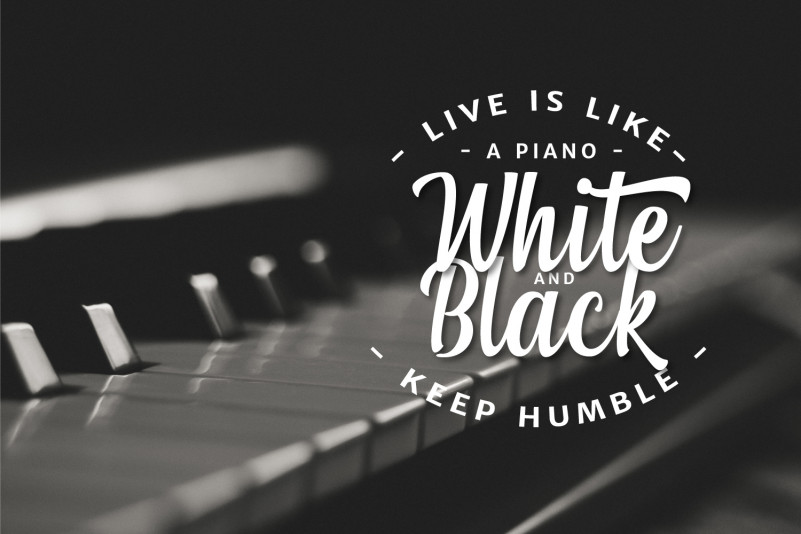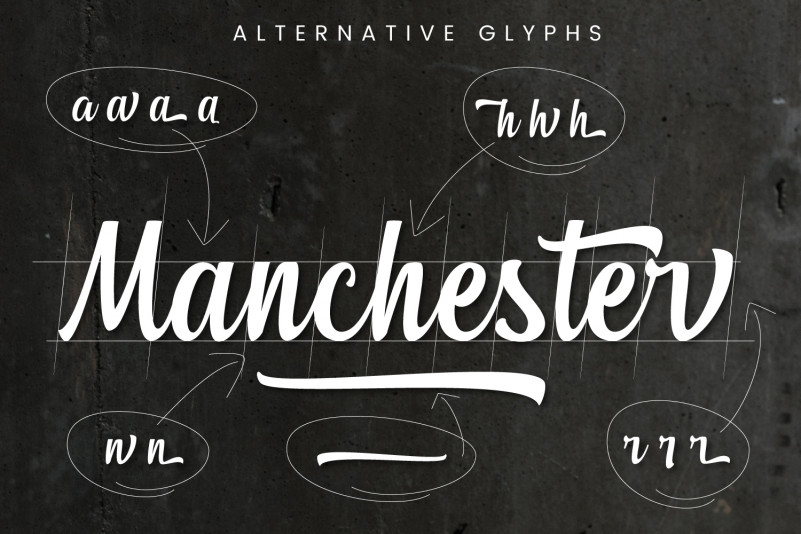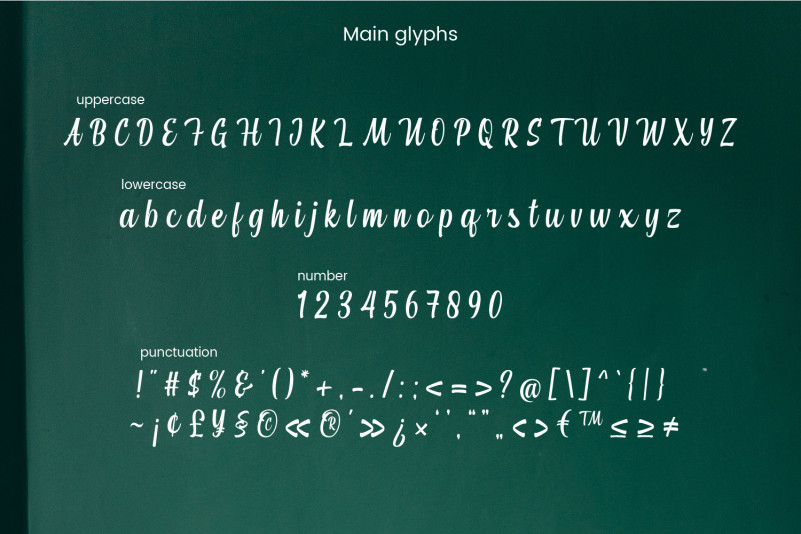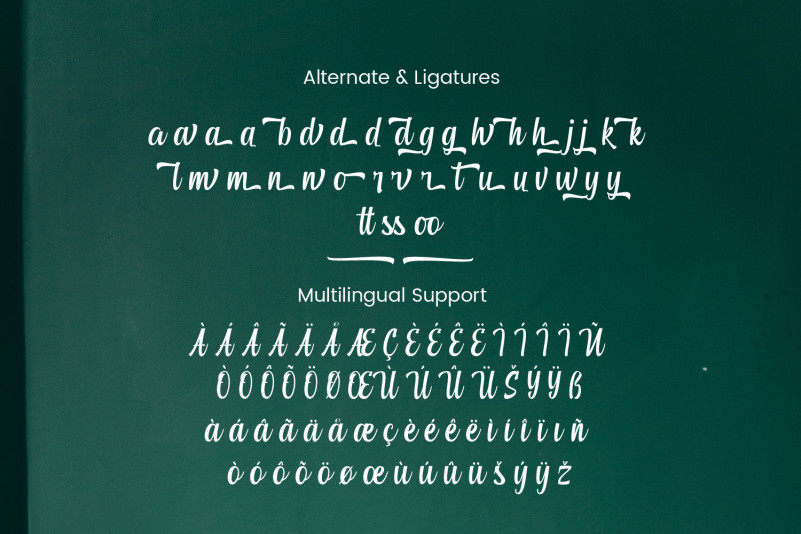
Atarashi Font
It’s a modern handwritten font. This font will look outstanding in any context, whether it’s being used on busy backgrounds or as a standalone headline! Atarashi Font is PUA encoded which means you can access all of the glyphs and swashes with ease!